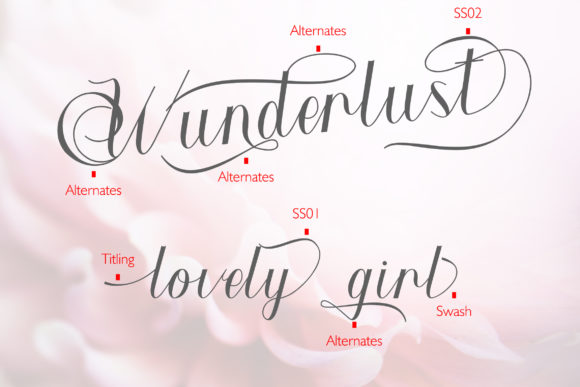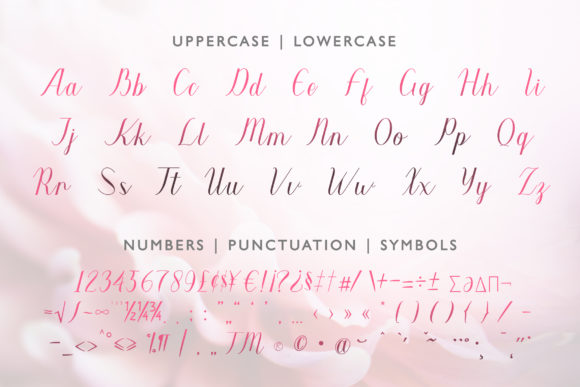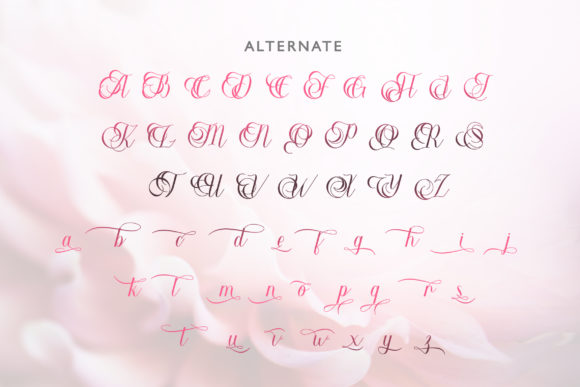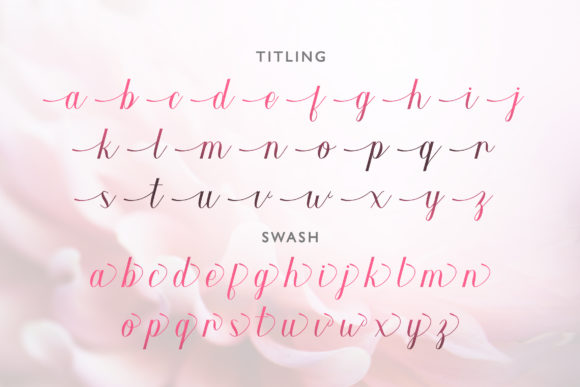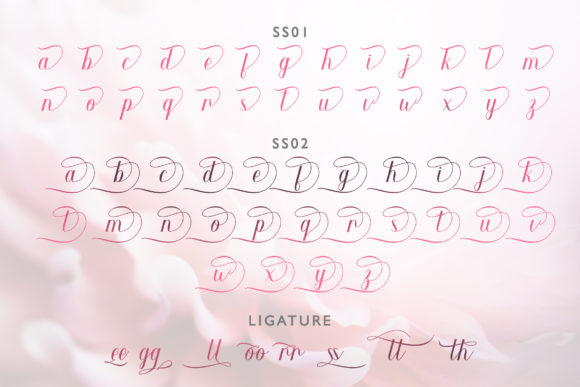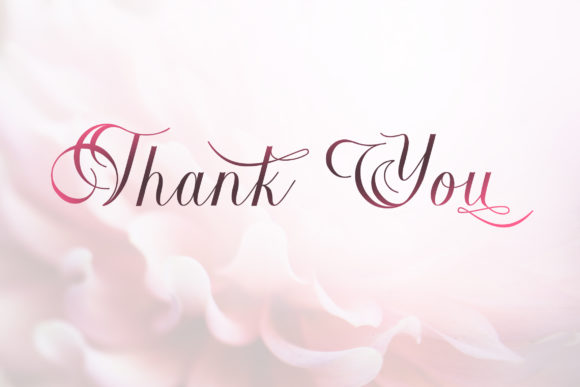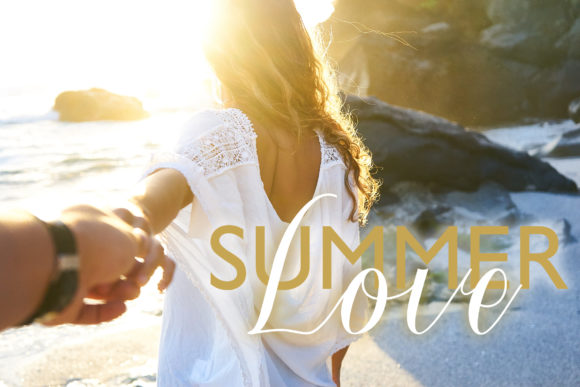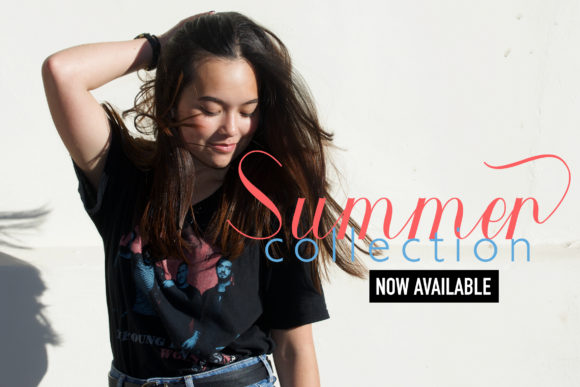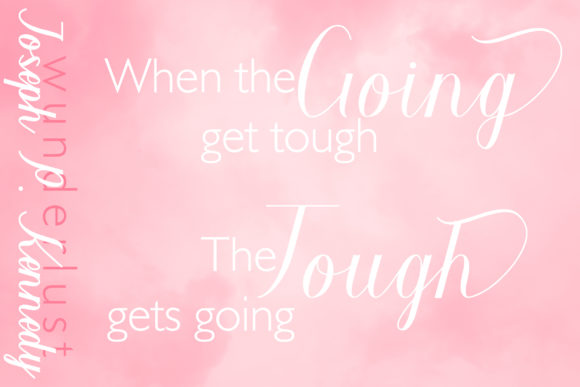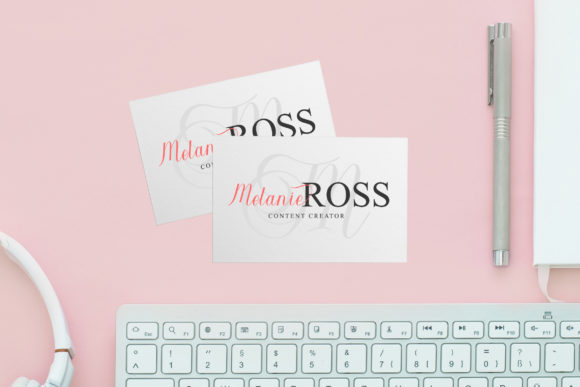
Wunderlust Font
About Wunderlust Font
Wunderlust is a stunning script font with a romantic feel. Fall in love with its bold swashes, and turn any design project into a standout.